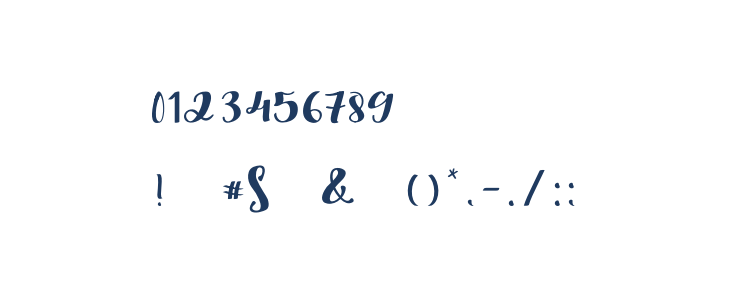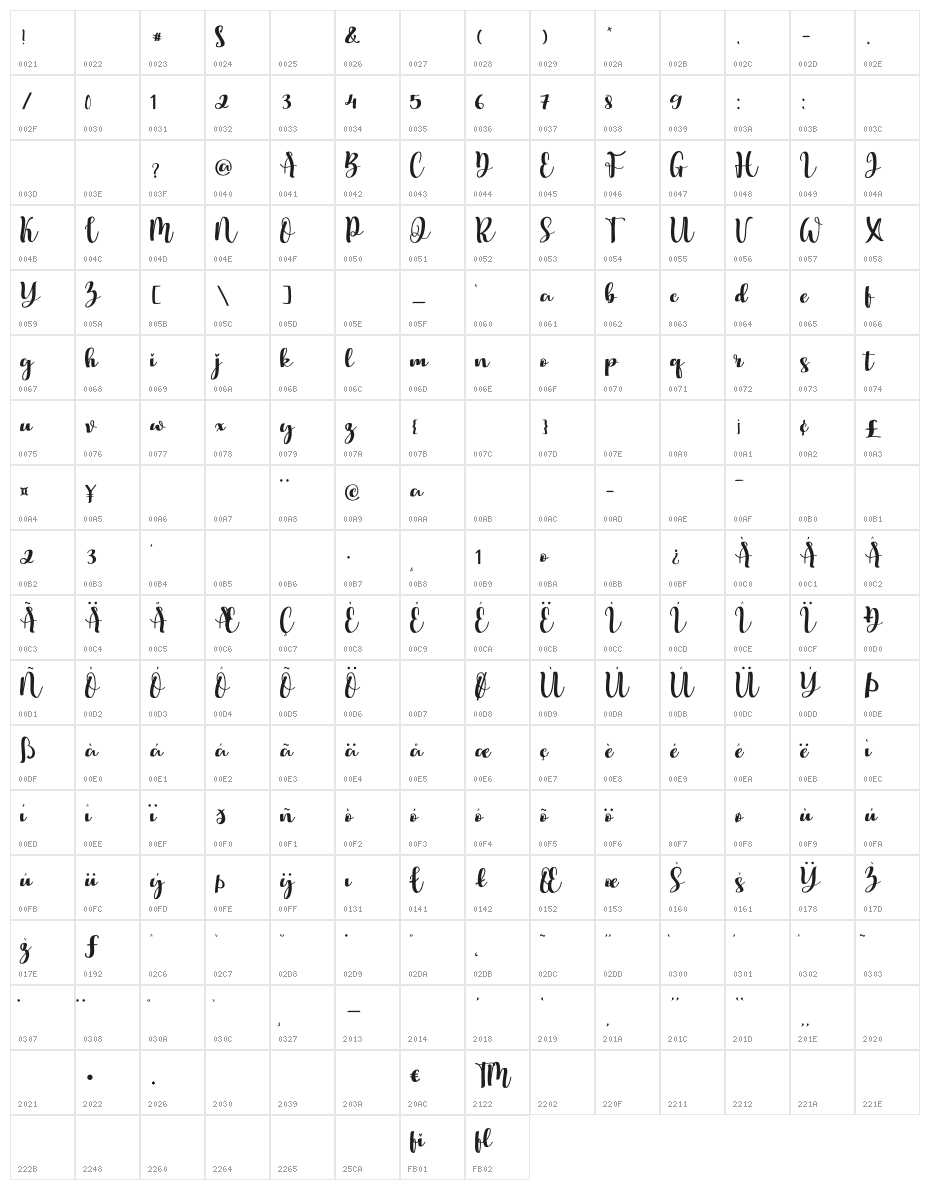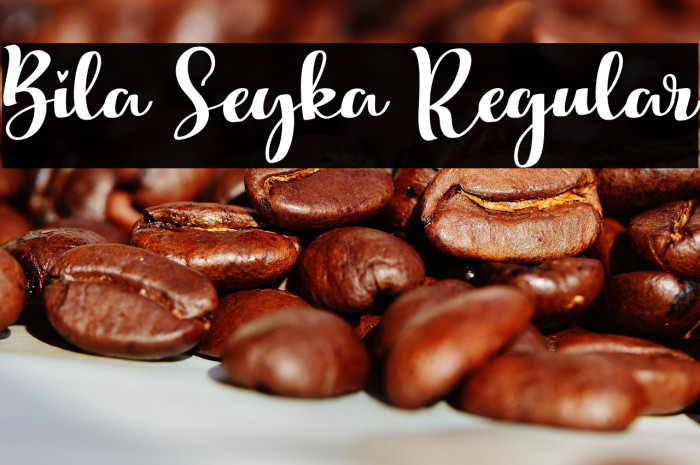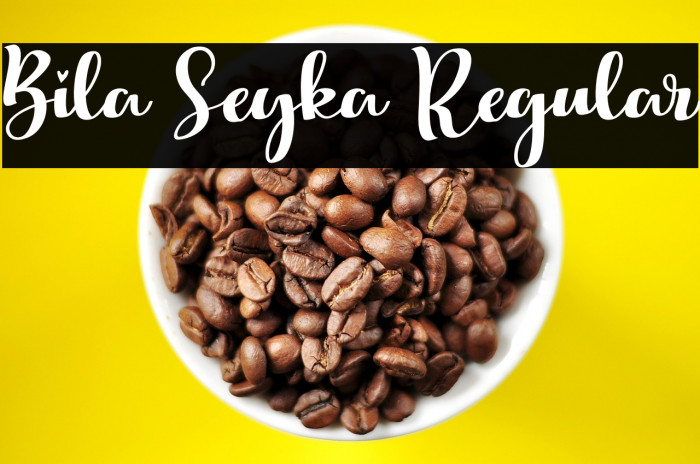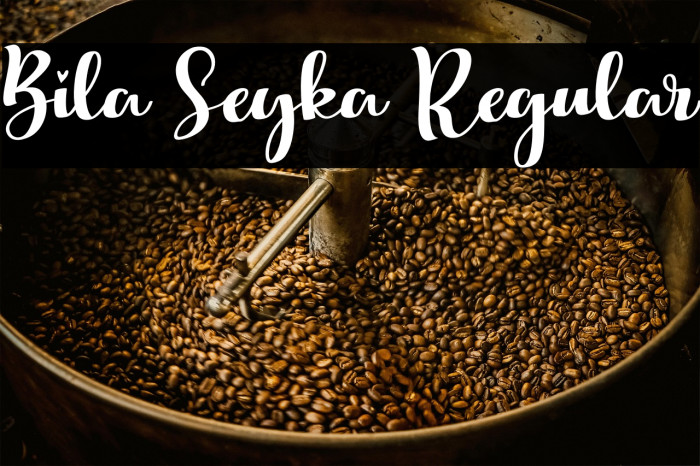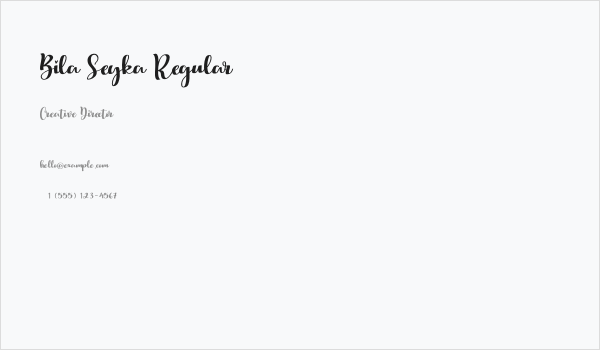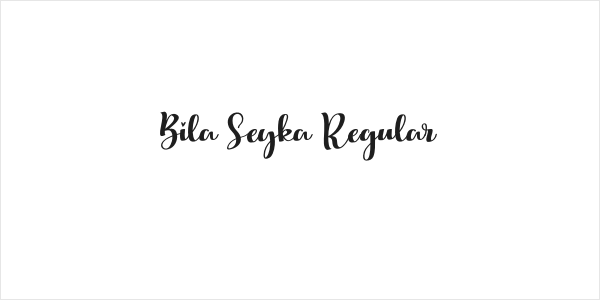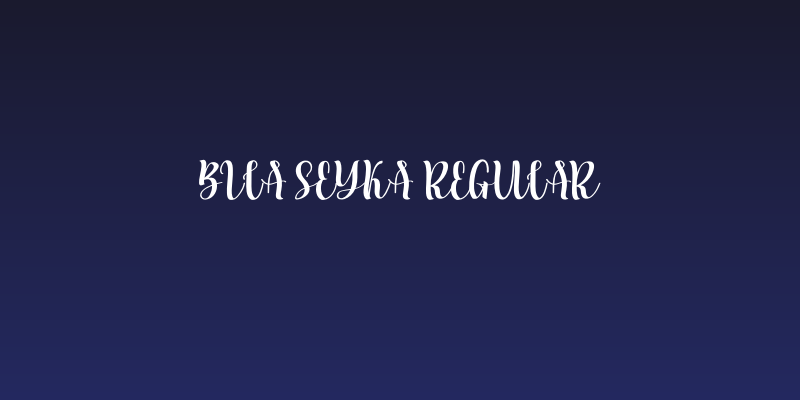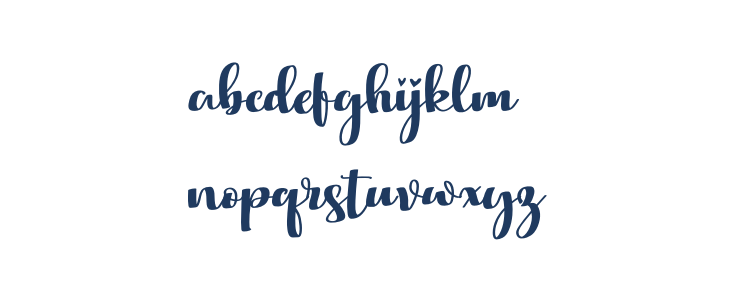
Bila Seyka Regular Font
Bila Seyka Regular Description
This font features a flowing, cursive style with elegant loops and swashes, giving it a handwritten appearance. The uppercase letters are bold and expressive, with intricate curves that add a touch of sophistication. The lowercase letters maintain a consistent flow, complementing the uppercase with their smooth, connected strokes. Numbers are clear and legible, while special characters are designed to match the overall aesthetic, making them suitable for decorative purposes. The font's playful yet refined style makes it versatile for various creative projects.